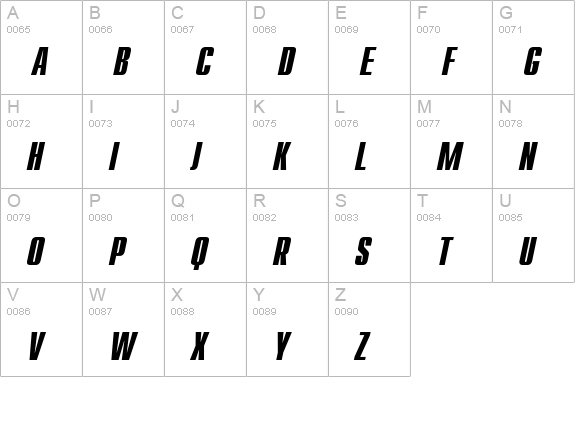
PT Compact BoldItalic Cyrillic Font Details
PT Compact BoldItalic Cyrillic font is a modern and stylish typeface that exudes confidence and sophistication. Its bold and italic design adds a touch of flair to any text, making it stand out with a sense of authority and elegance. Perfect for headlines, titles, and branding materials, this font is versatile and eye-catching. Best of all, PT Compact BoldItalic Cyrillic font is available for free download at FontsMarket.com. This means you can elevate your design projects with this sleek and professional typeface without breaking the bank. Don't miss out on the opportunity to enhance your creations with this stunning font that is both bold and elegant. Download it now and add a touch of sophistication to your designs.